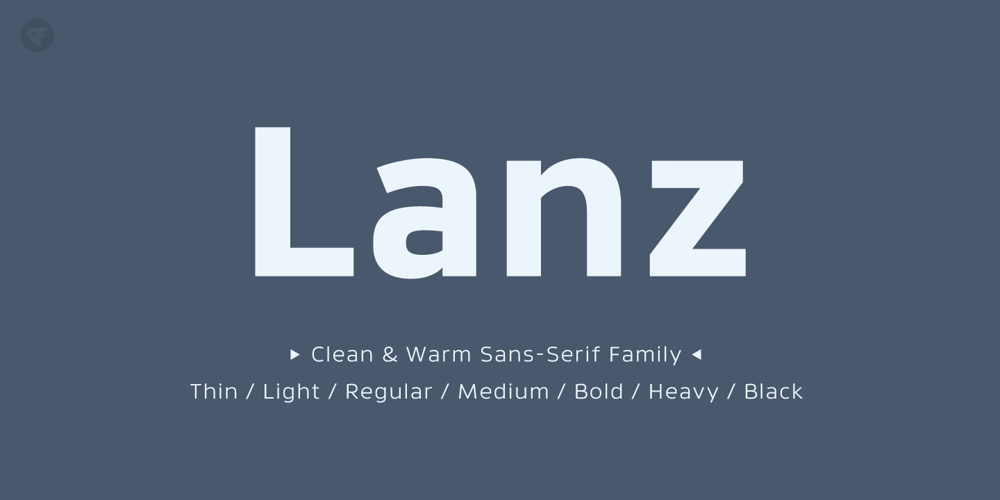
Lanz
Lanz font
Lanz Font Family was designed by Paul Chen and published by Nine Font. Lanz contains 14 styles and family package options. Lanz Family is a clean & warm sans serif family with 7 weights – 7 uprights and matching italics. Its open apertures and large x-heights make text more legible and readable at small sizes. Recommended for editorial design, a header for an article and a various range of typography.